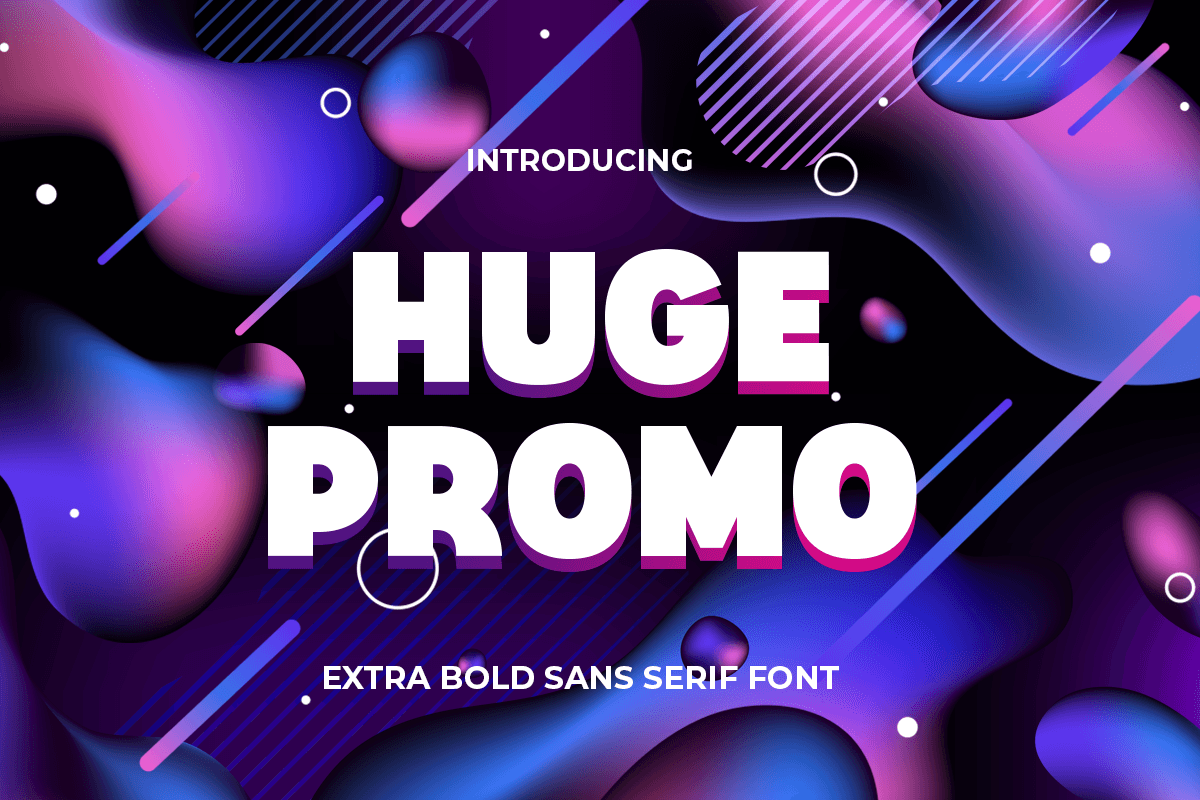
HUGE PROMO
-Extra Bold Sans Serif Font
HUGE PROMO is a Extra Bold sans serif font with bold body, perfect for Headline use on Promotion, Title of Magazine, Social Media, Branding, Logo, and Many more that needs to be stand out.